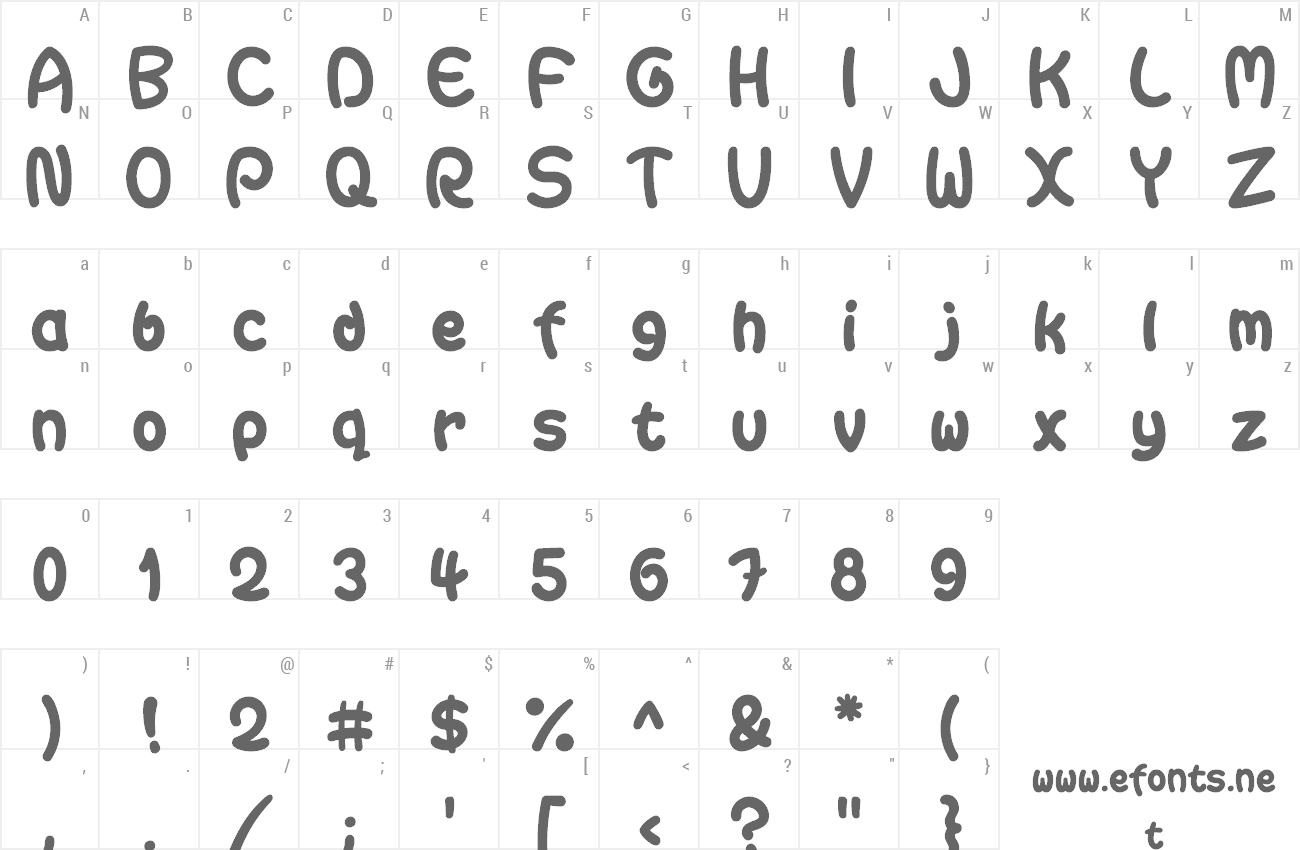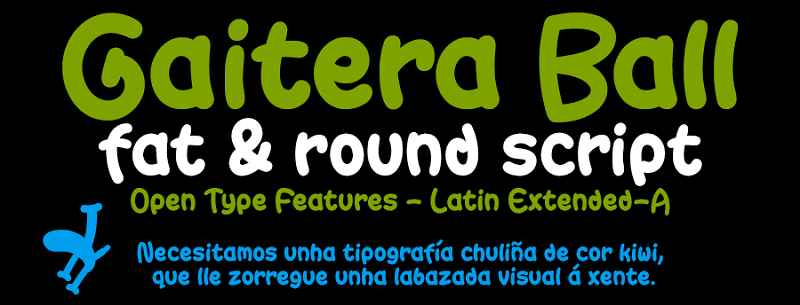
Gaitera Ball is a handwritten typography made with very big spherical tip pen and friendly looking, it is perfect for designing eye-catching titles of manuscript style. The source has short ascenders and descenders and proportional capital letters give a very compact appearance. ========================= FULL VERSION + COMMERCIAL LICENSE: http://defharo.com/fonts/gaitera-ball-font/ |